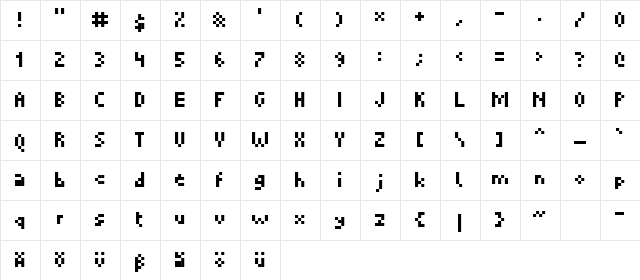
Micropixel Regular
Design Context for Micropixel Typeface
Micropixel celebrates the constraints of early digital type, turning pixel geometry into a distinctive and immediately recognisable style.
Well-suited to indie game interfaces, retro computing aesthetics, and pixel art-adjacent design work.
Dating back to 2008, this typeface is available in TrueType (TTF) format.
Pro Tip: Use Micropixel at sizes that align with its pixel grid for the sharpest rendering — scaling to non-integer multiples can introduce unwanted blur.